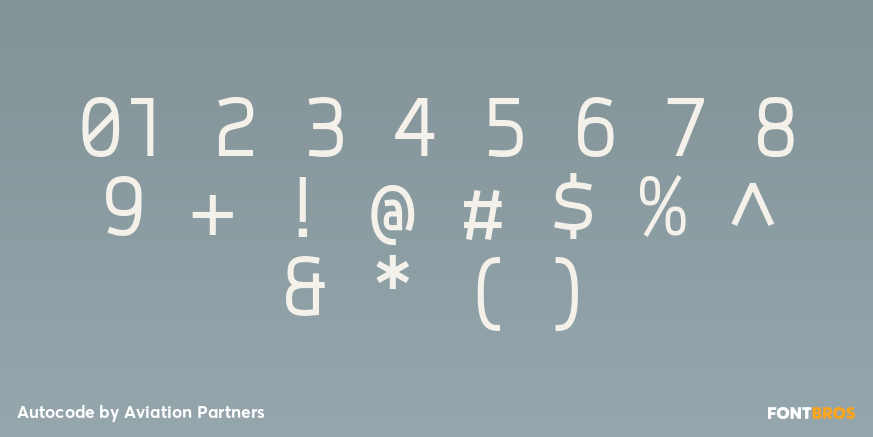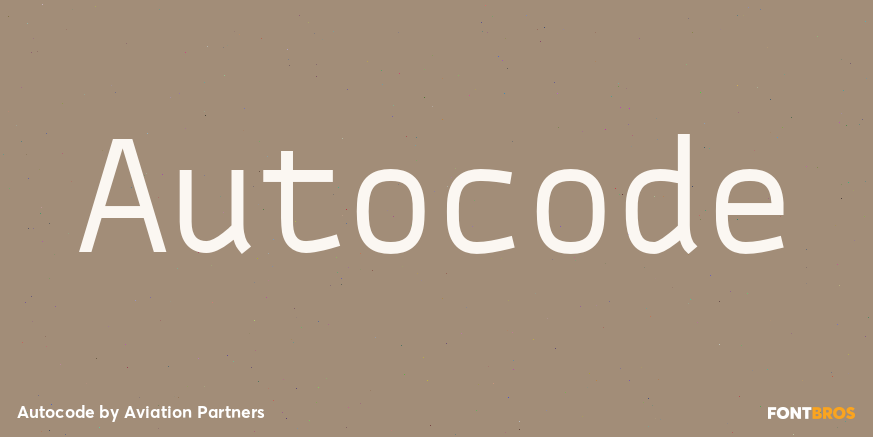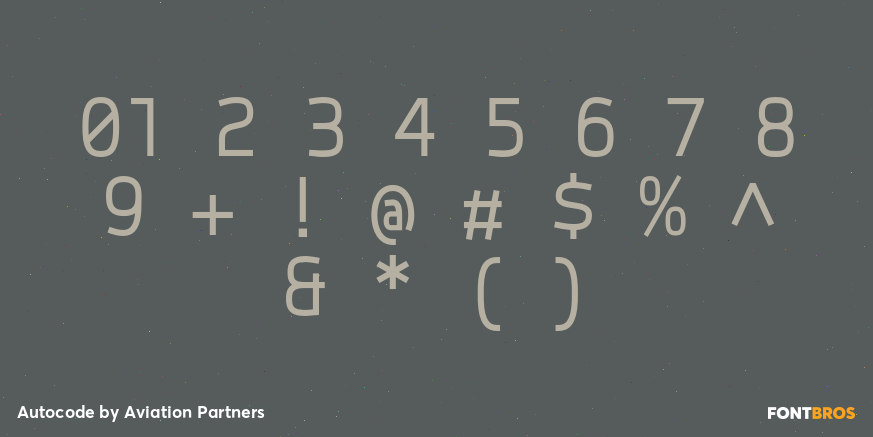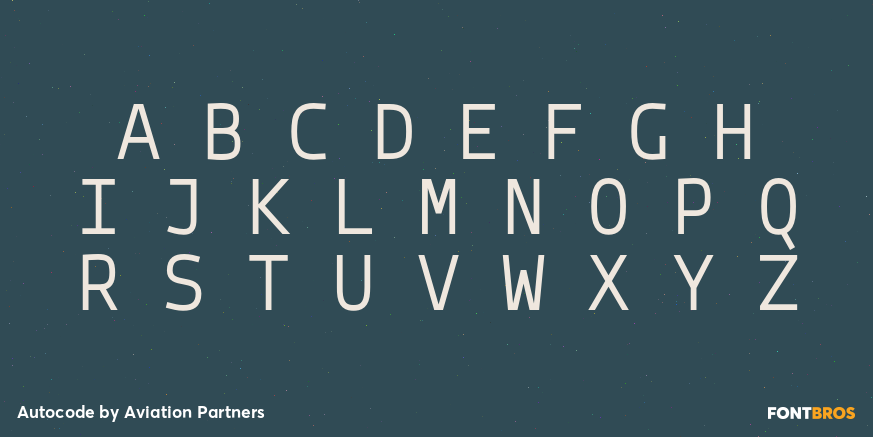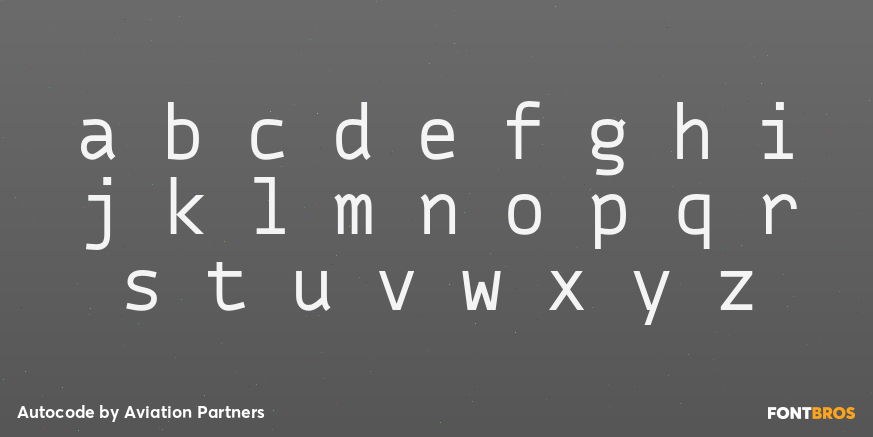
Autocode
Font Family by Aviation Partners
Autocode is a highly legible monospaced font based on Autobahn, ideal for coding and wherever mono spacing is required. It also works effectively as a general text font.